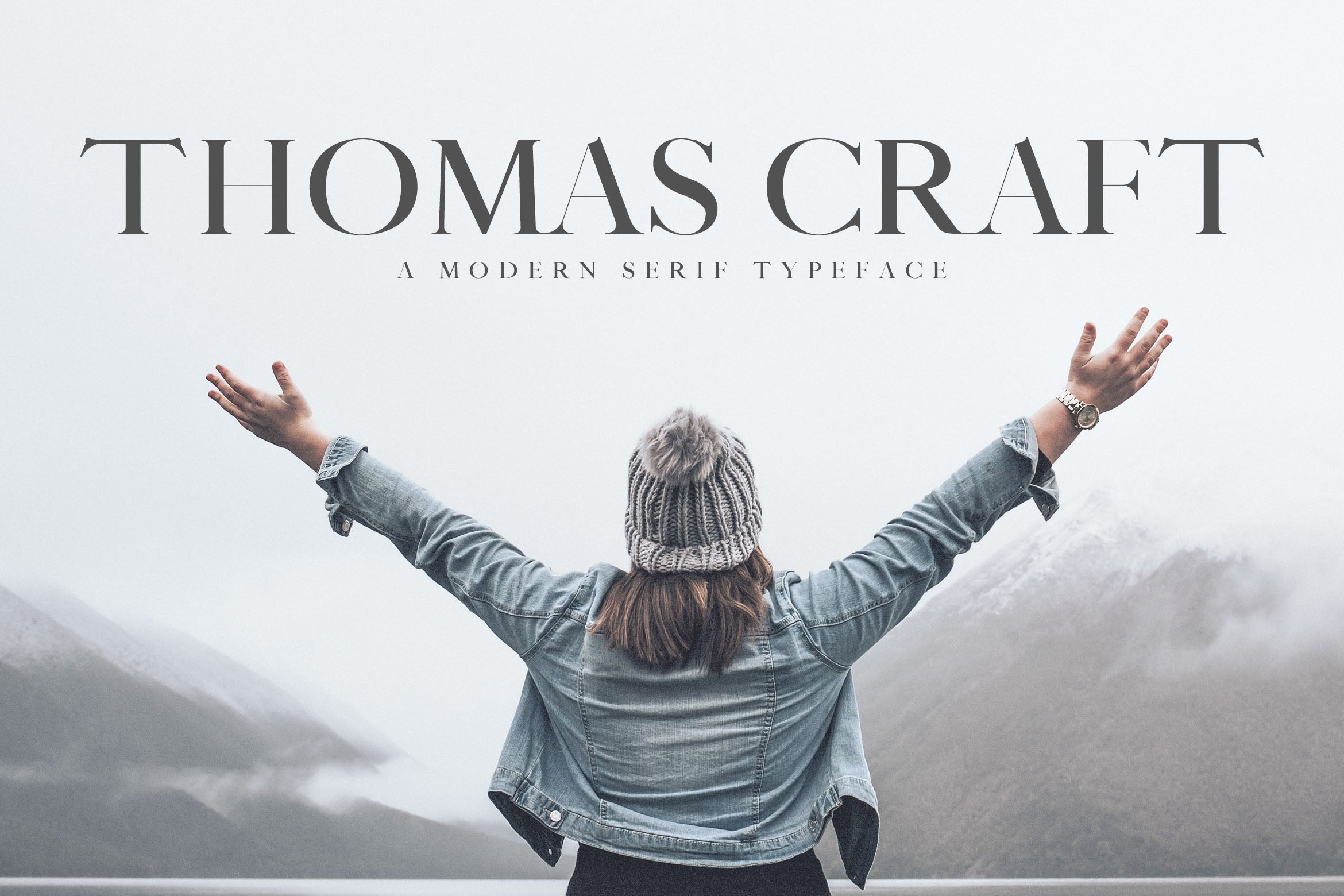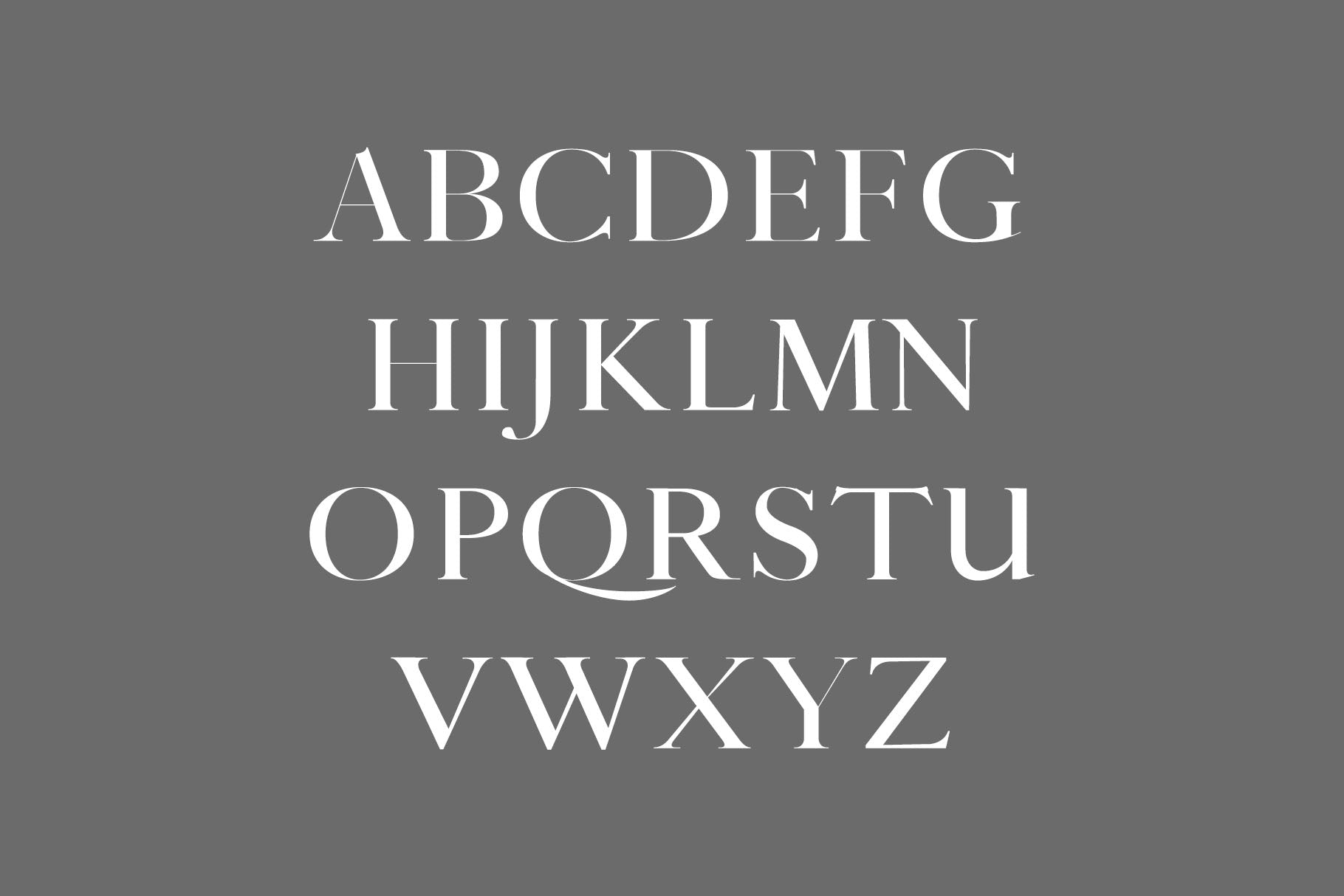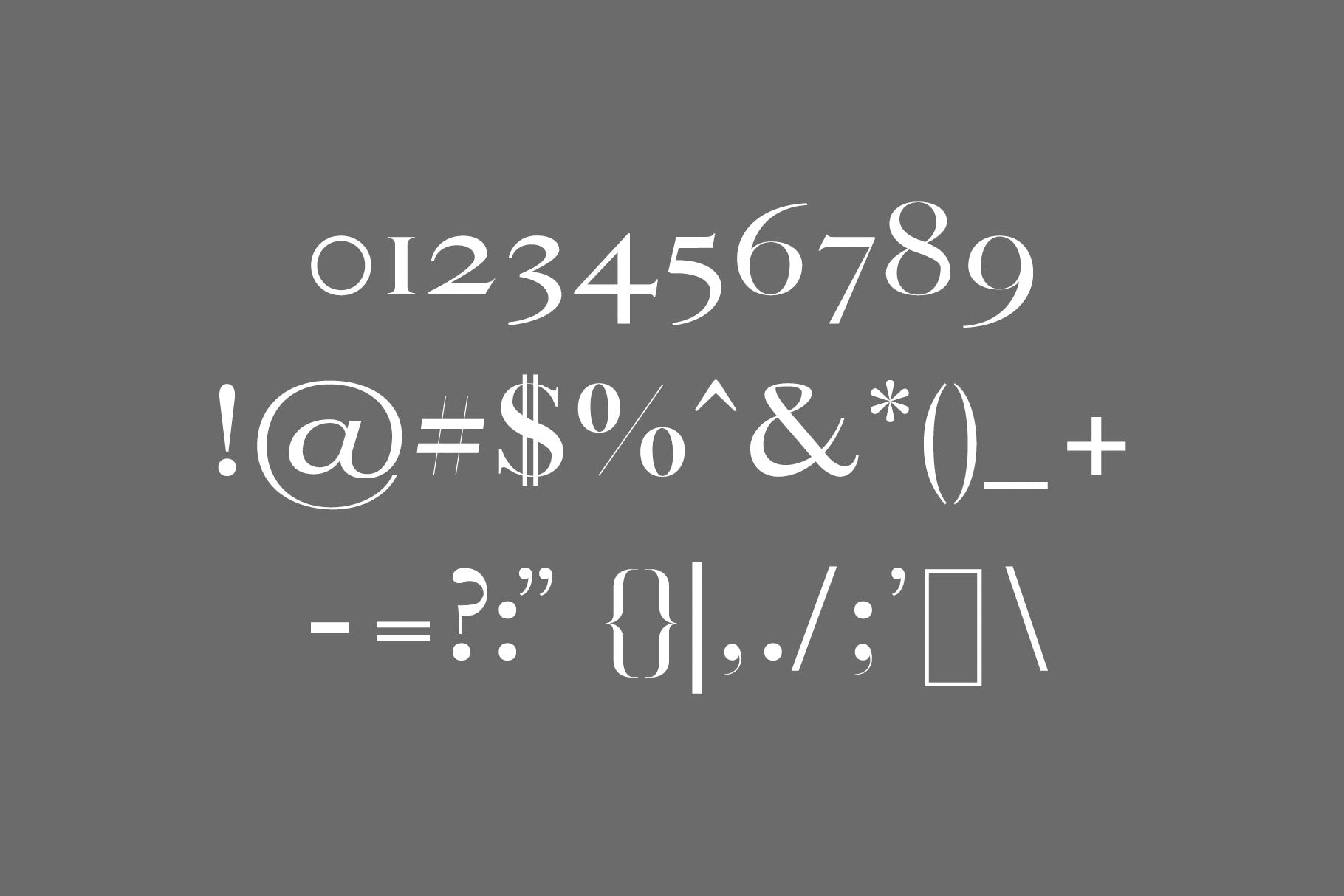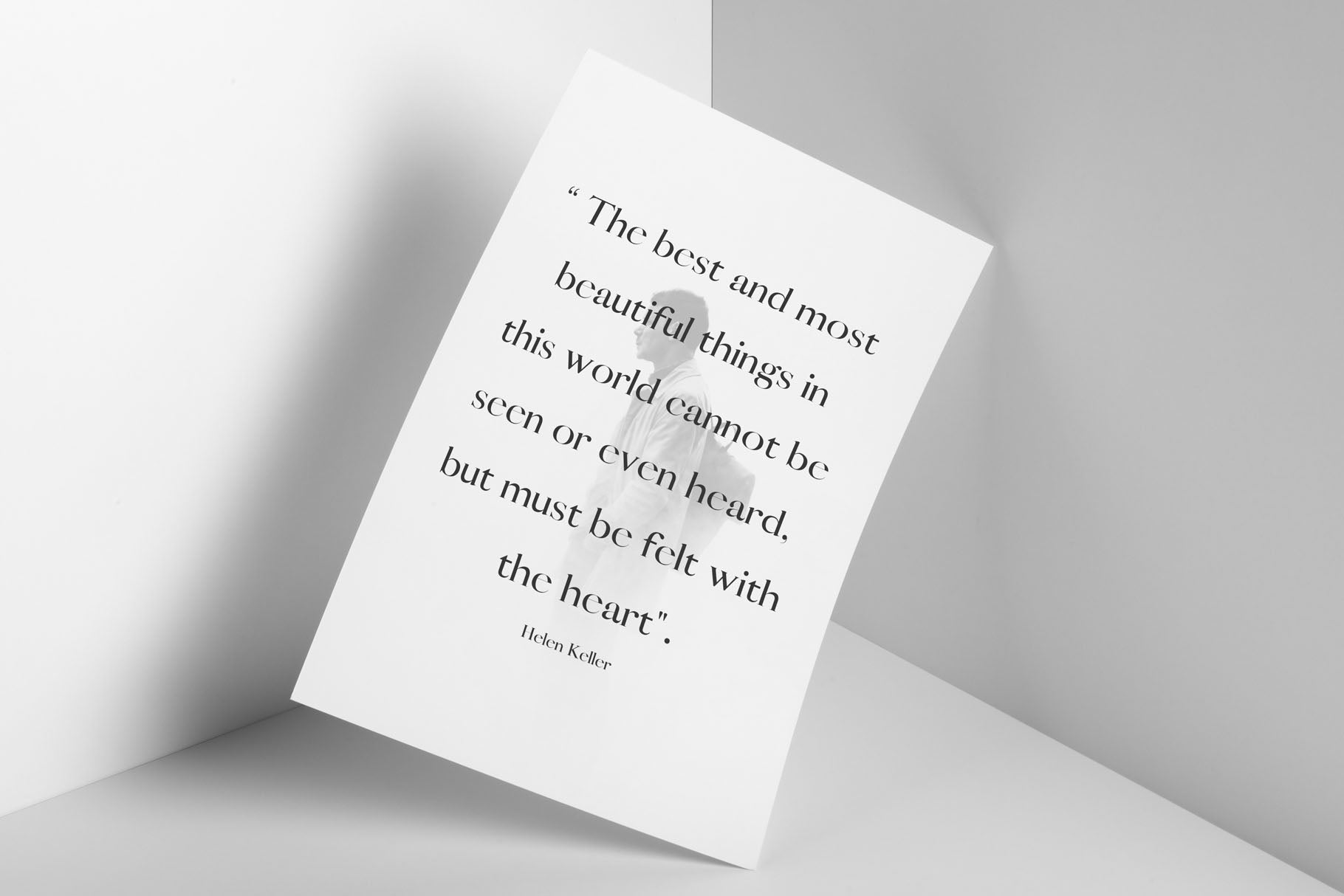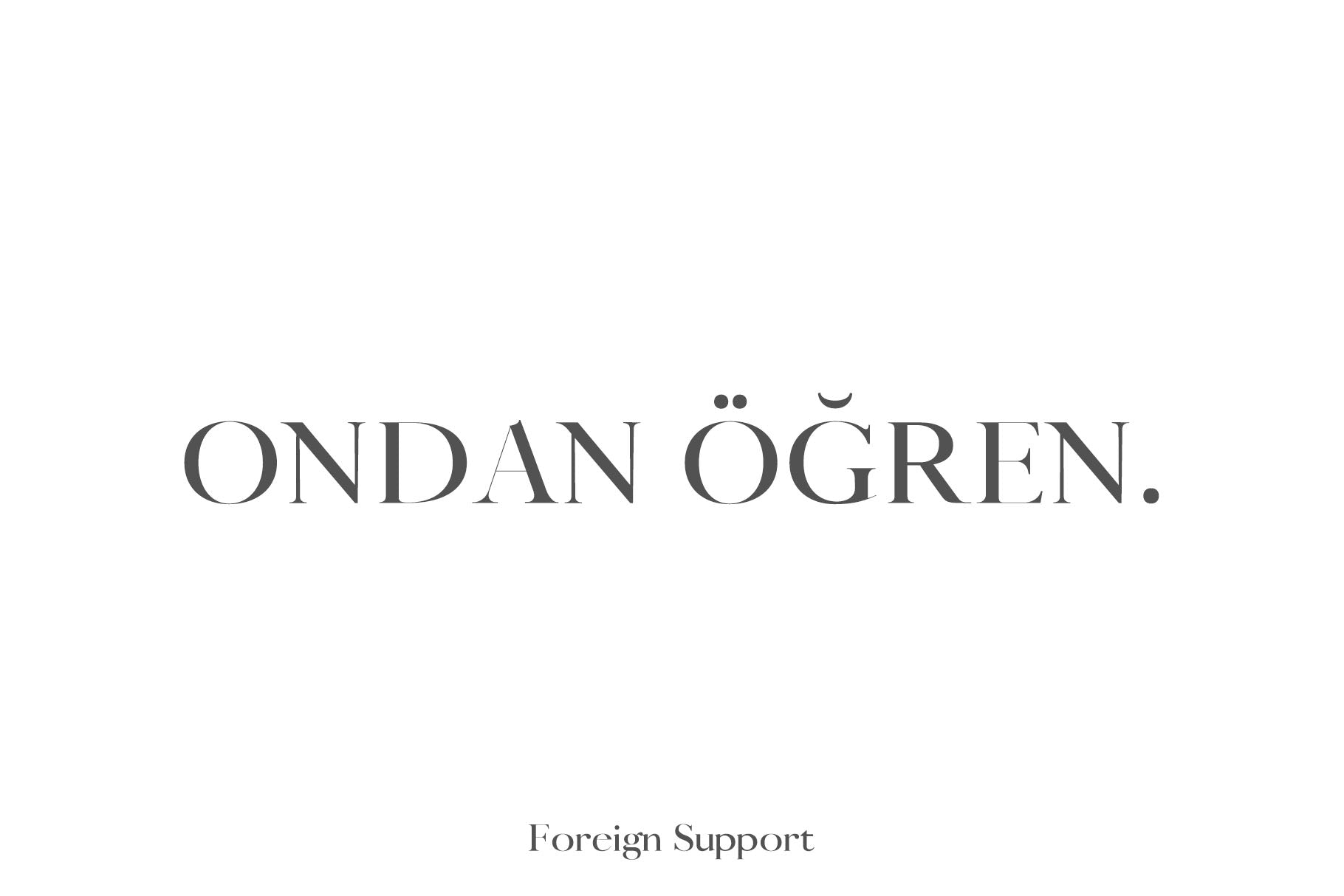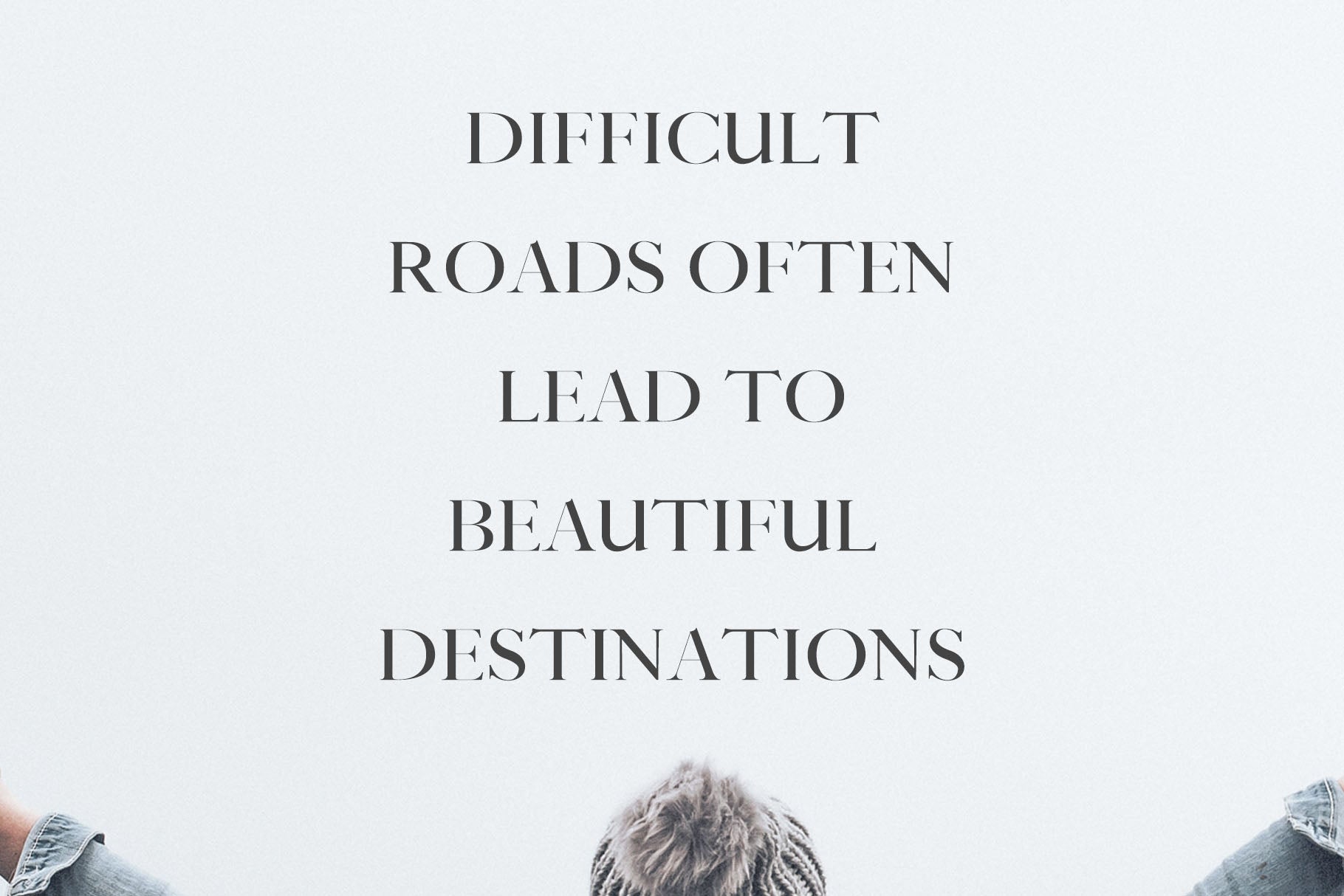
Thomas Craft is a sophisticated modern serif font with 4 different weight choice. It includes all basic glyphs with Non-English characters.
Font Weight: Regular, Thin, Round and Bold
Uppercase Letters
Lowercase Letters
Numbers & Punctuation
Non English Characters (Latin Supplement + Latin Extended A)